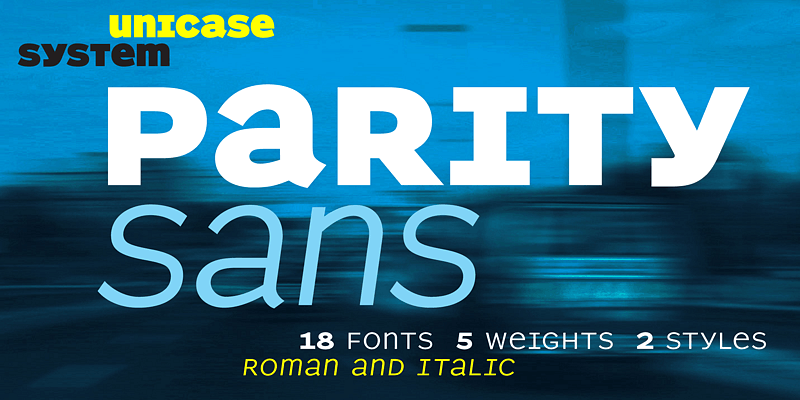
Parity Sans Font Free Download is a clean, modern sans-serif typeface designed for clarity, balance, and versatility. With its minimalist letterforms and precise geometry, this font is perfect for corporate branding, websites, mobile apps, editorial layouts, and marketing materials. It’s built to look professional while maintaining a friendly, approachable vibe.
What sets Parity Sans apart is its harmonious spacing and smooth line weight, which ensures excellent readability across all screen sizes and print formats. Whether you're crafting user interfaces or building sleek presentations, Parity Sans offers a neutral yet elegant look that blends seamlessly into any design system.